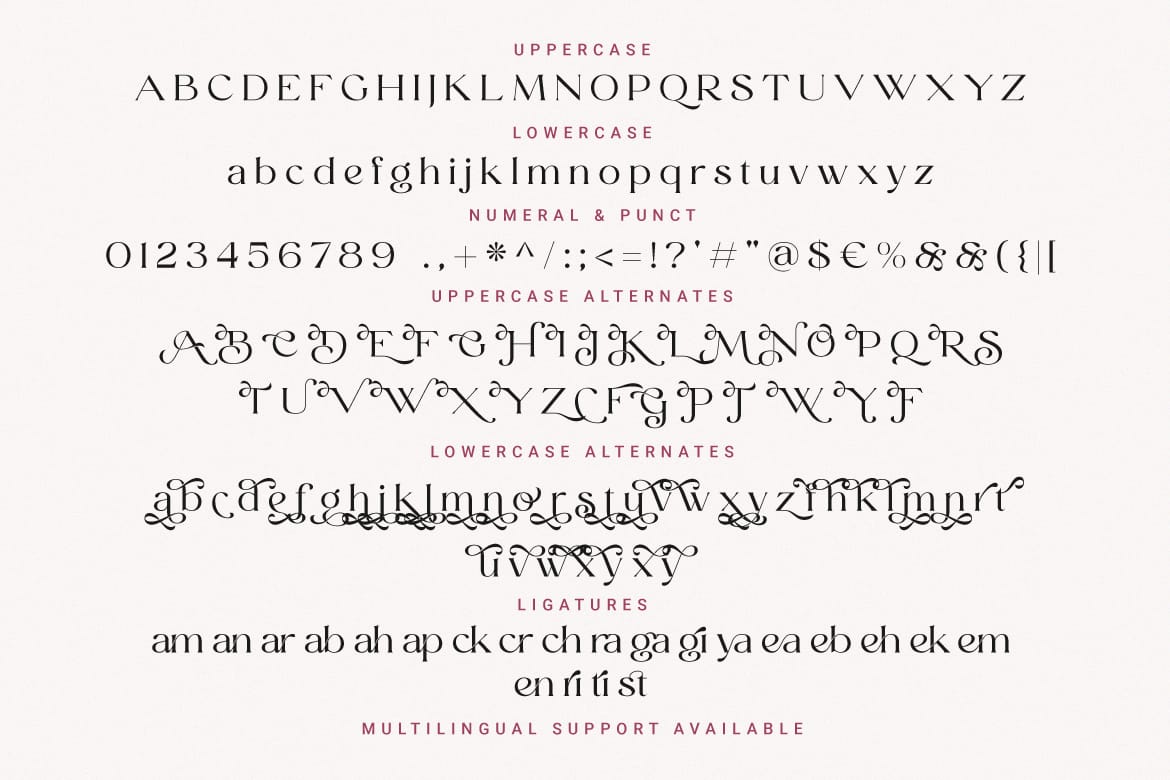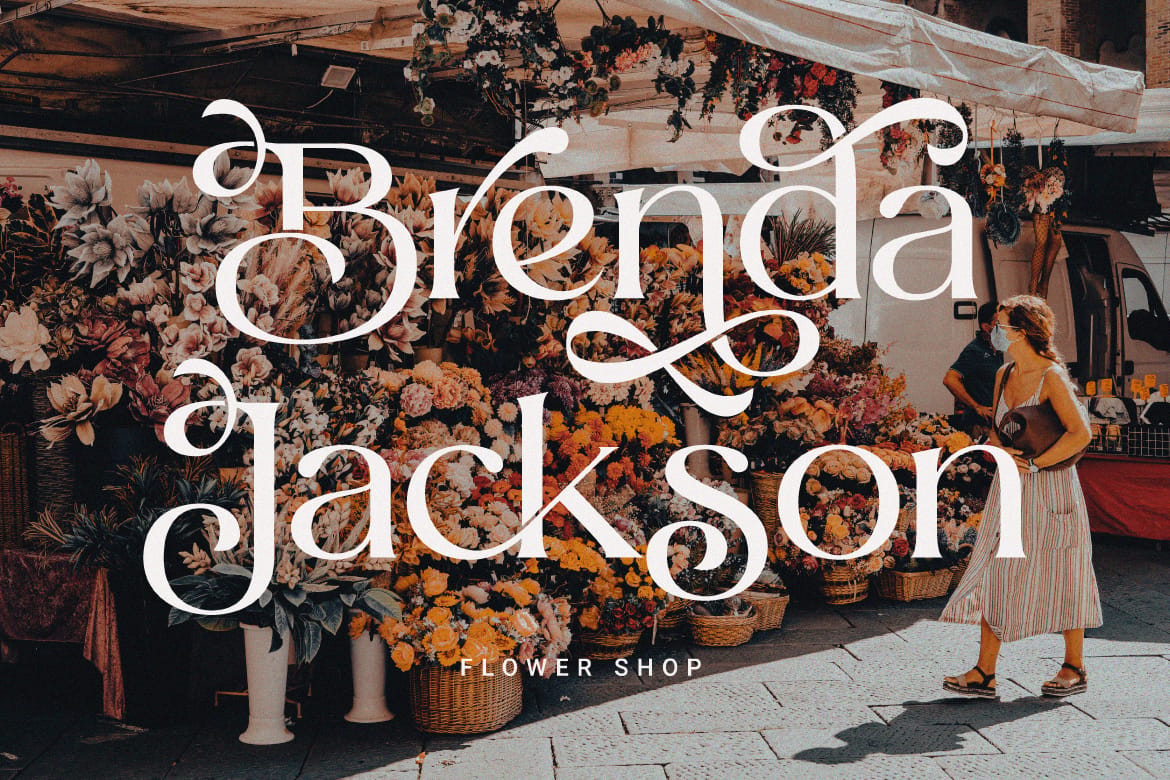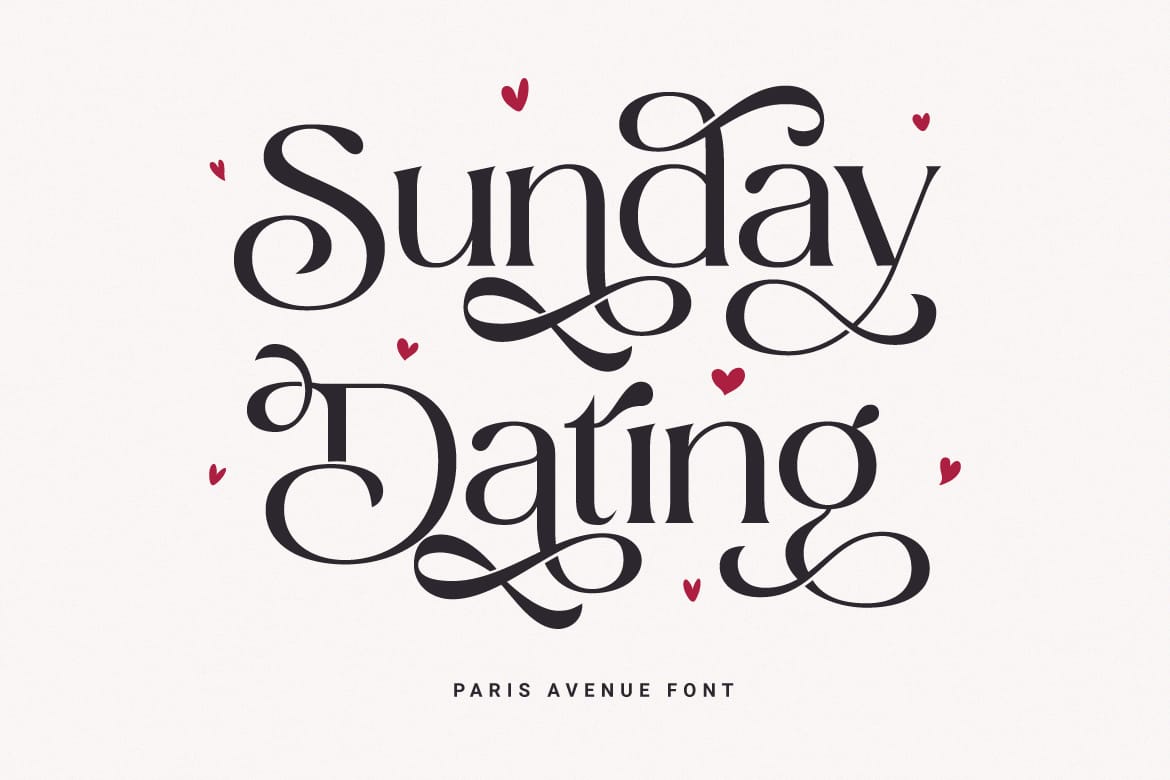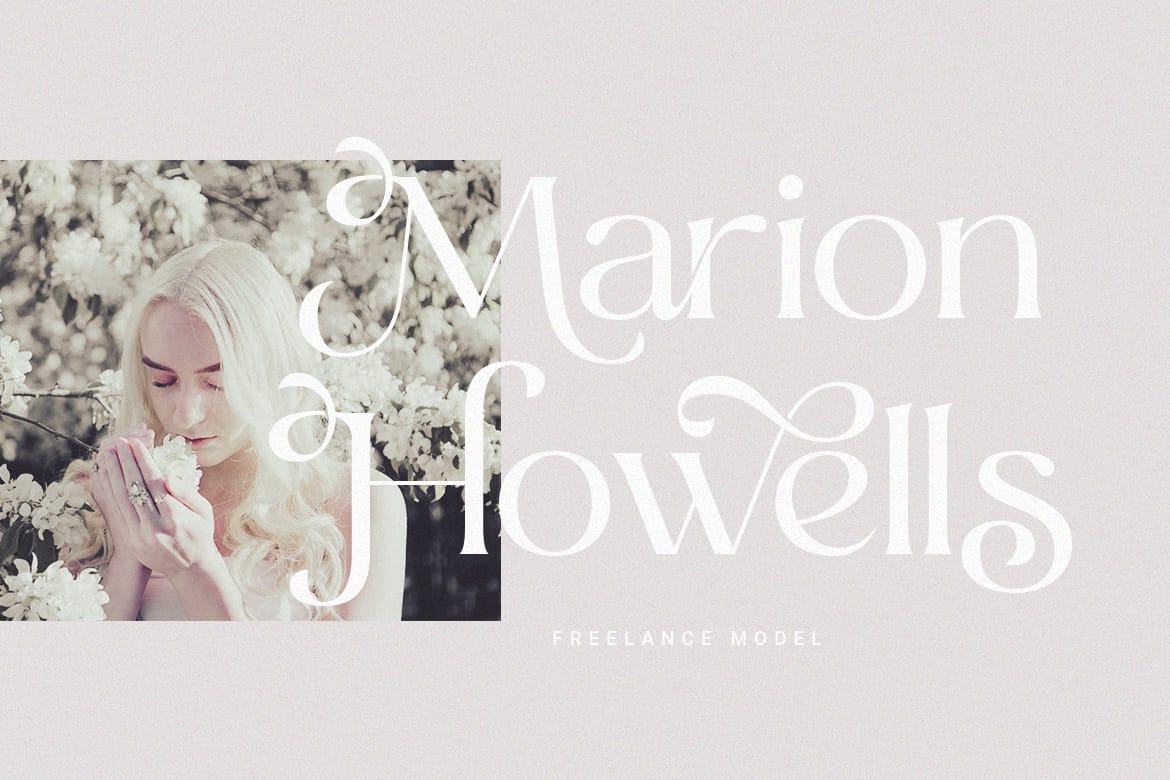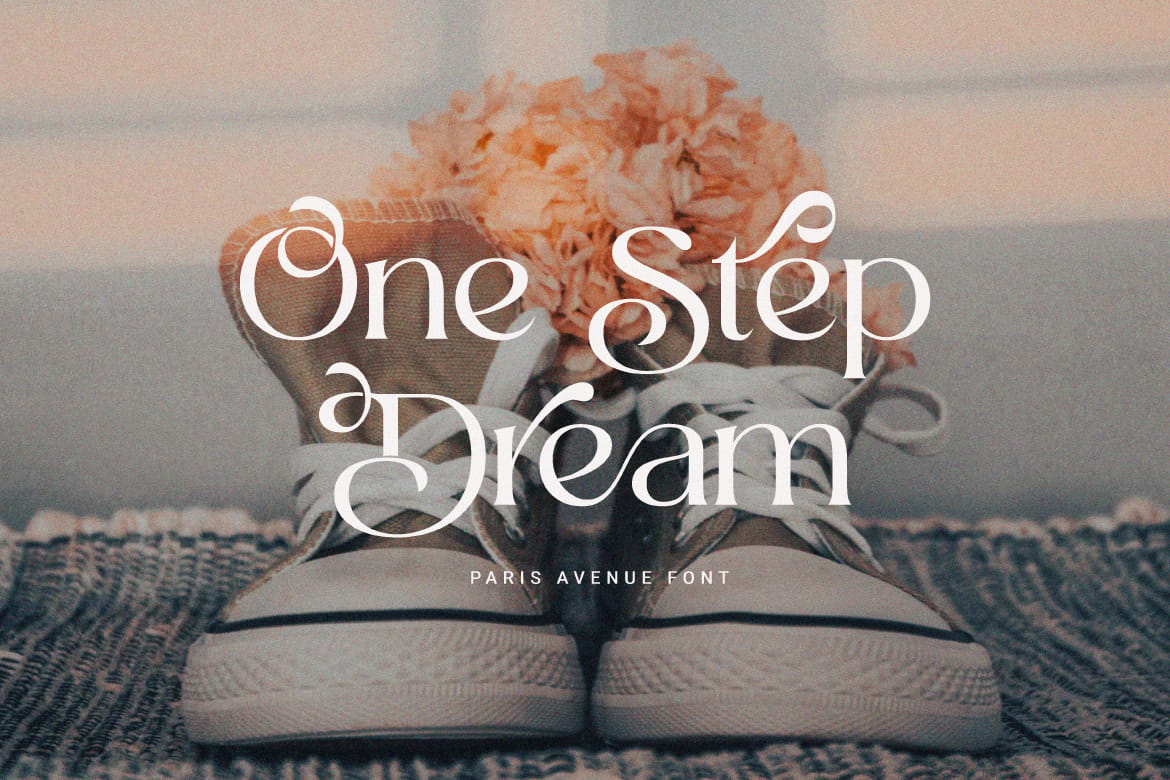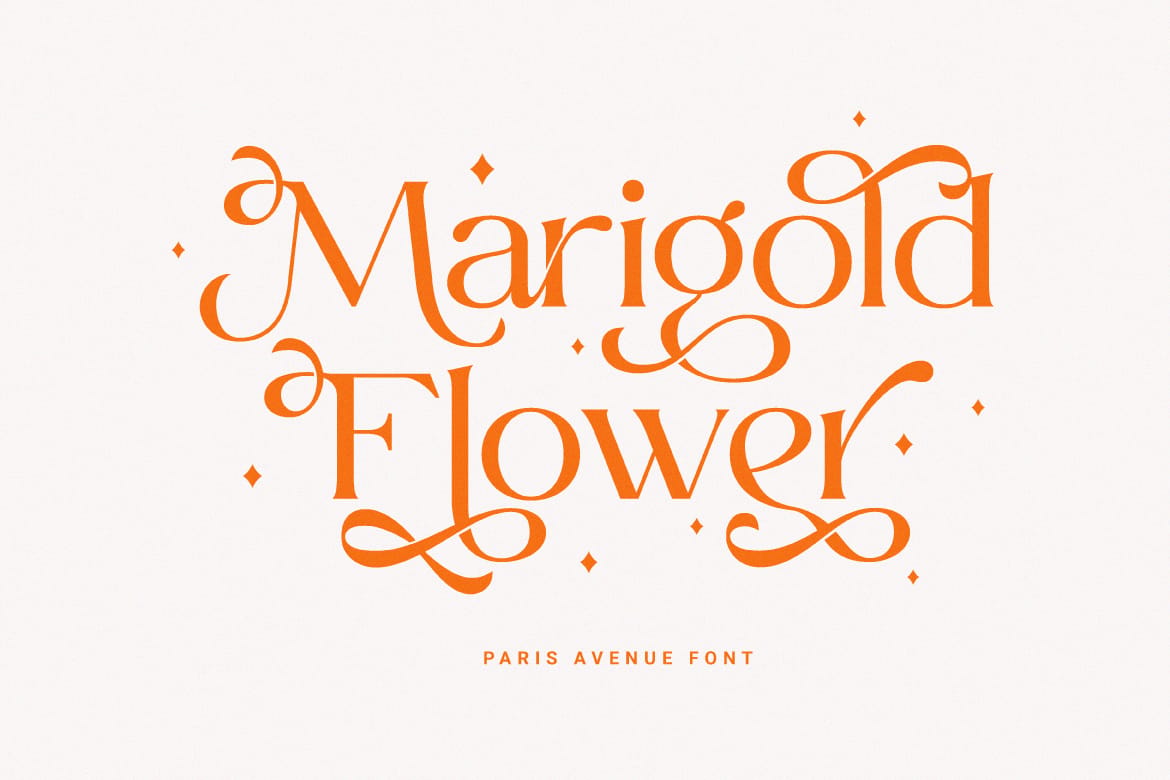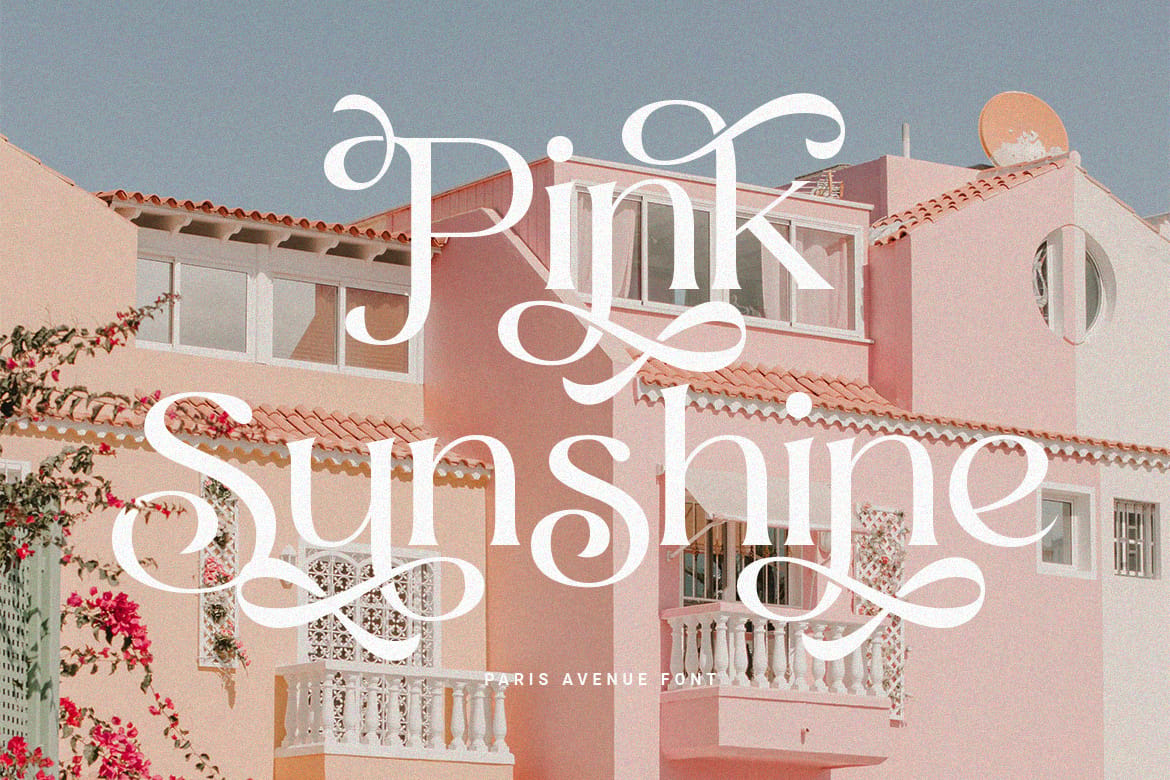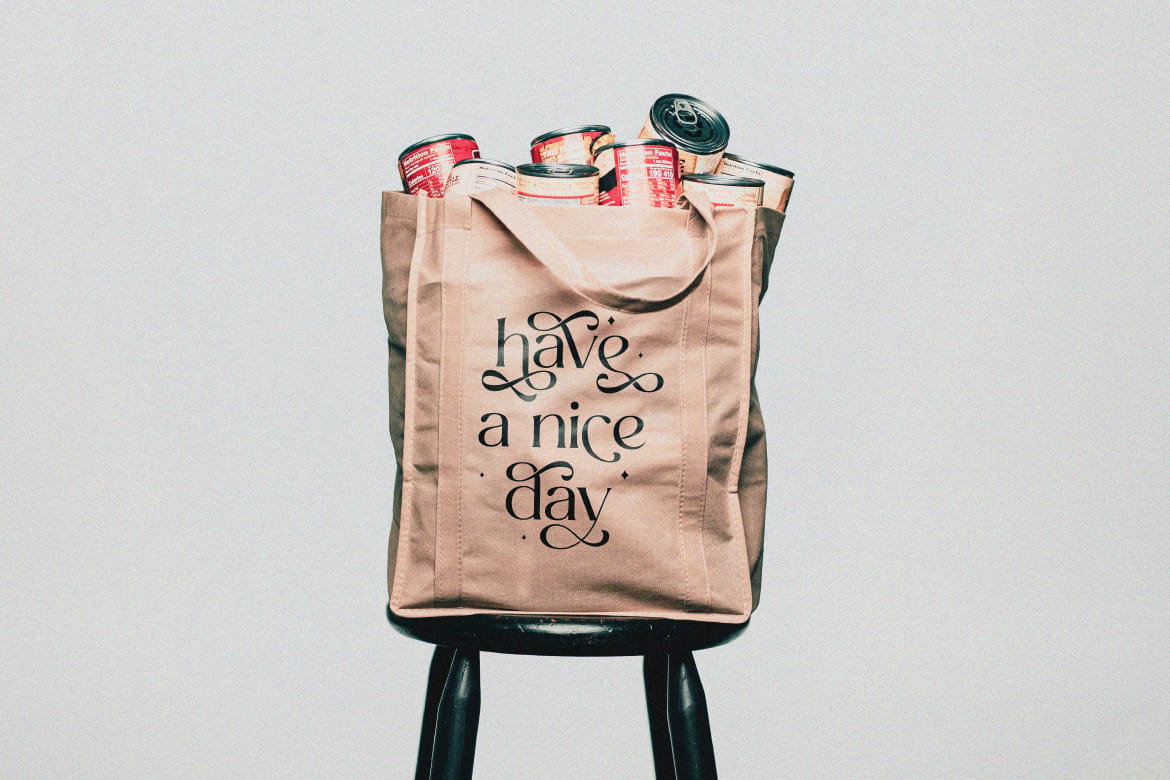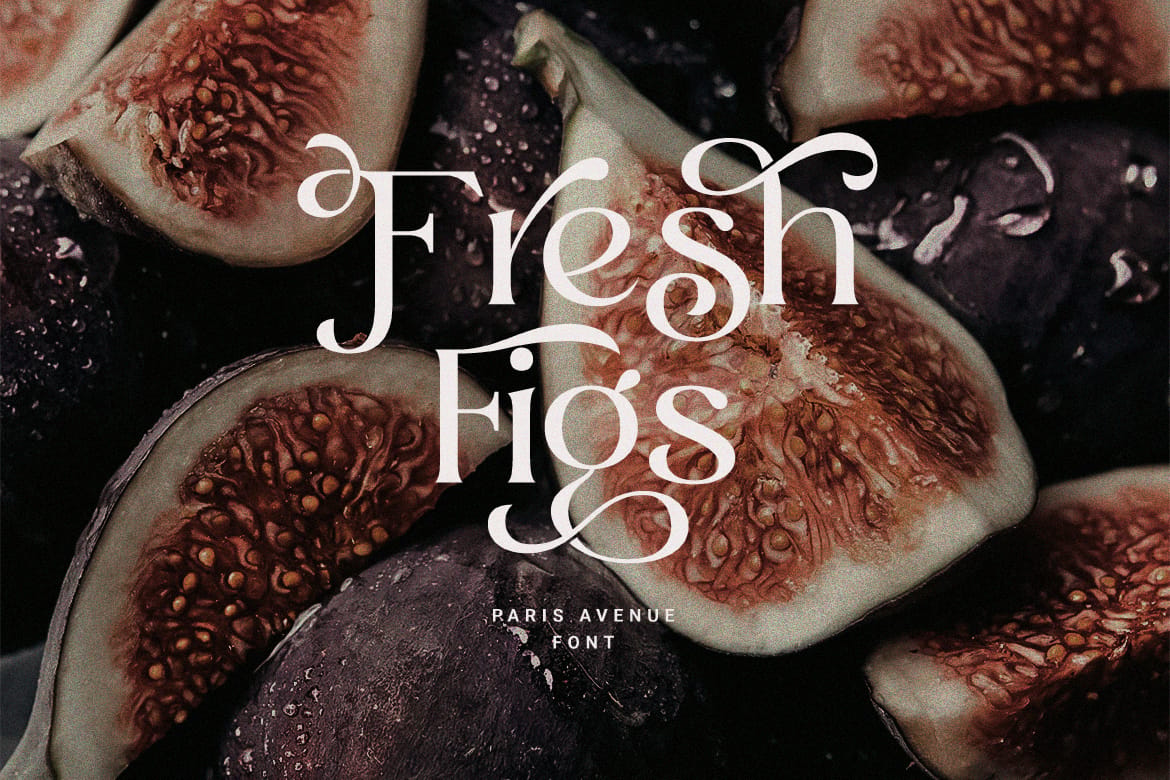
Paris Avenue - Modern Display Serif by Prioritype Co.
A modern display serif font with a wide variety of alternative characters to expand your design exploration. Great to apply to branding designs, wedding invitations, headlines, logos and more.
Features: Uppercase, Lowercase, Numeral, Punctuation, Multilingual, Alternates & Ligatures.
Multilingual supported: Afrikaans, Albanian, Basque, Catalan, Danish, Dutch, English, Estonian, Filipino, Finnish, French, Galician, German, Indonesian, Irish, Italian, Luxembourgish, Norwegian Bokmål, Norwegian Nynorsk, Portuguese, Quechua, Romansh, Spanish, Swahili, Swedish, Swiss German, Zulu and more.
- Wide alternates and ligatures
- Multilingual and fashion-ready